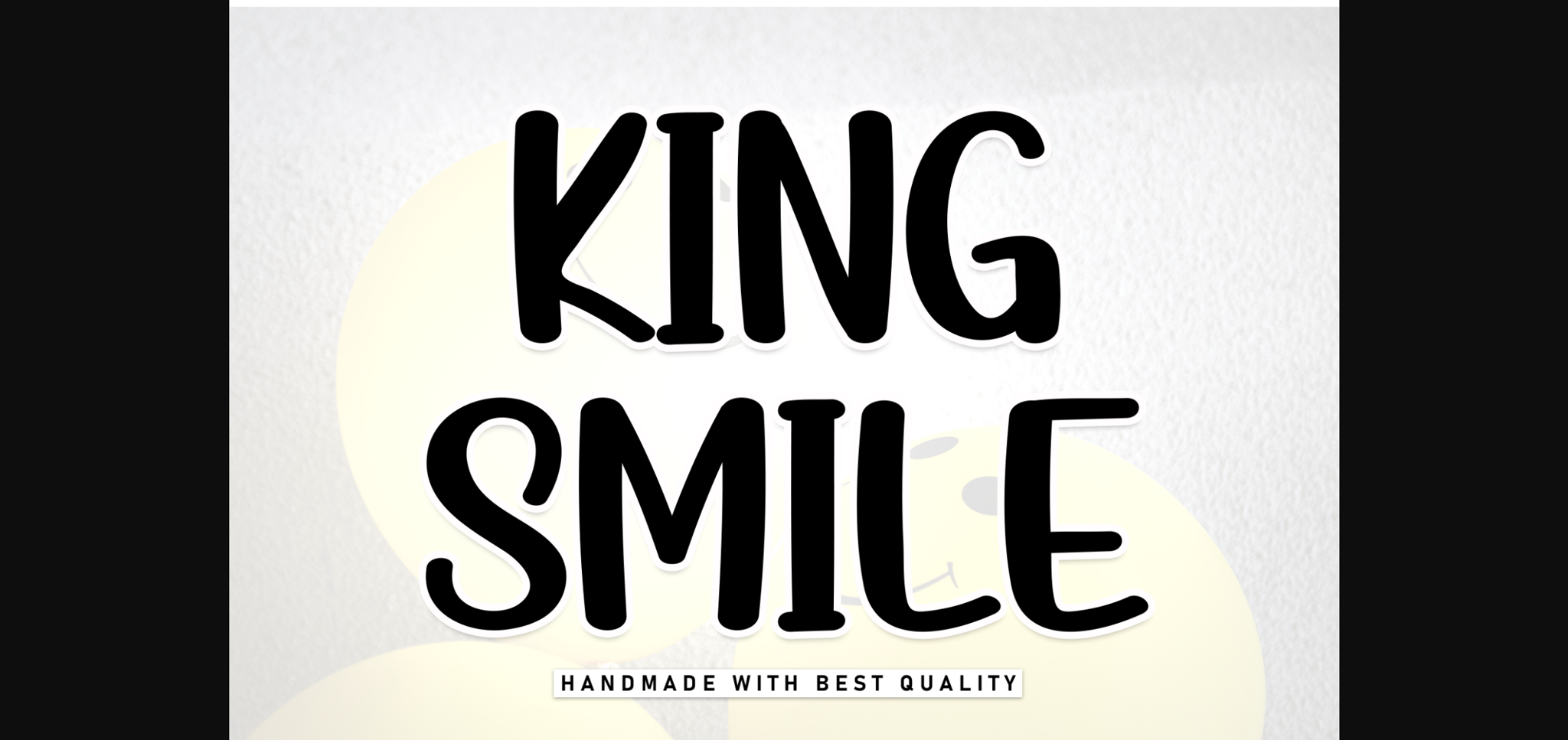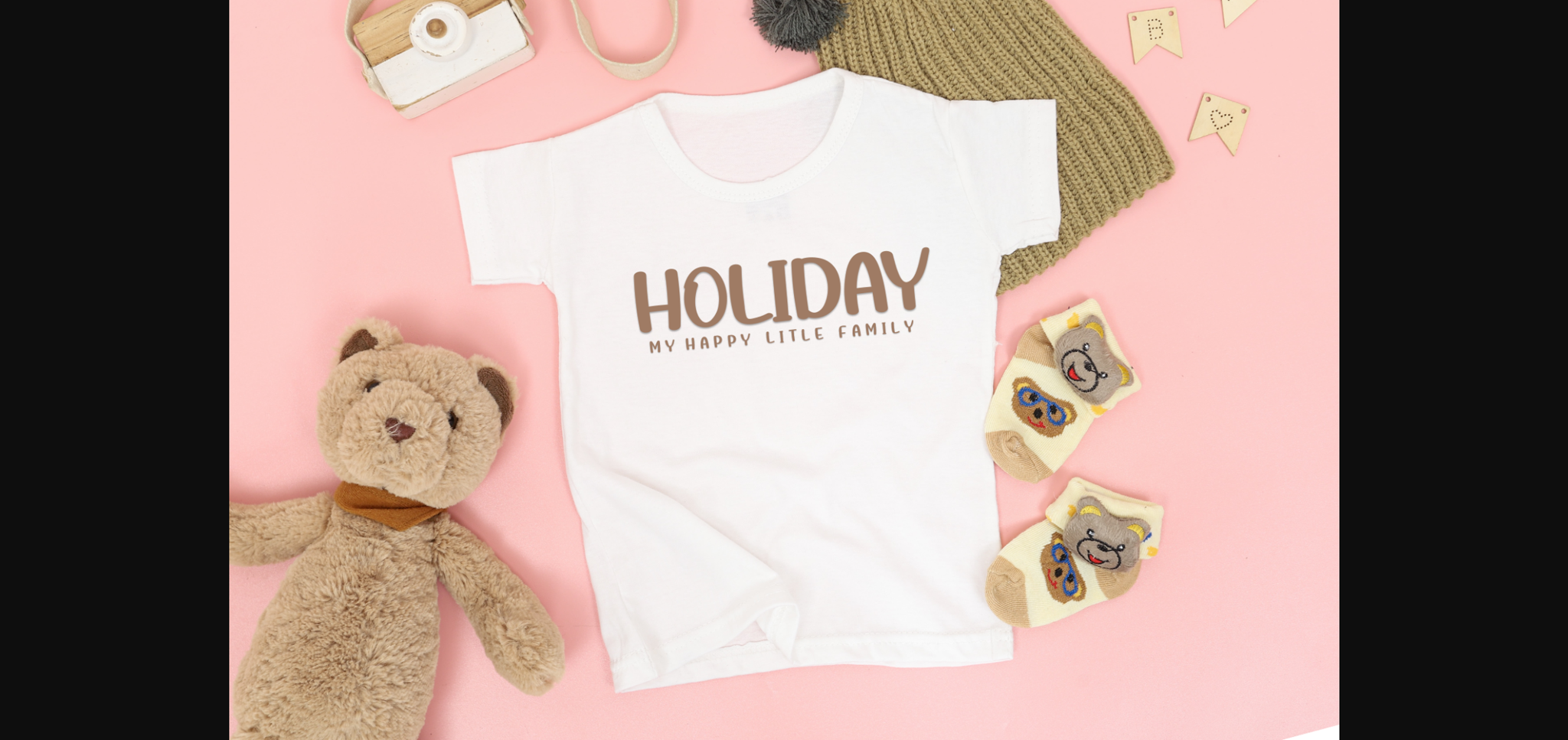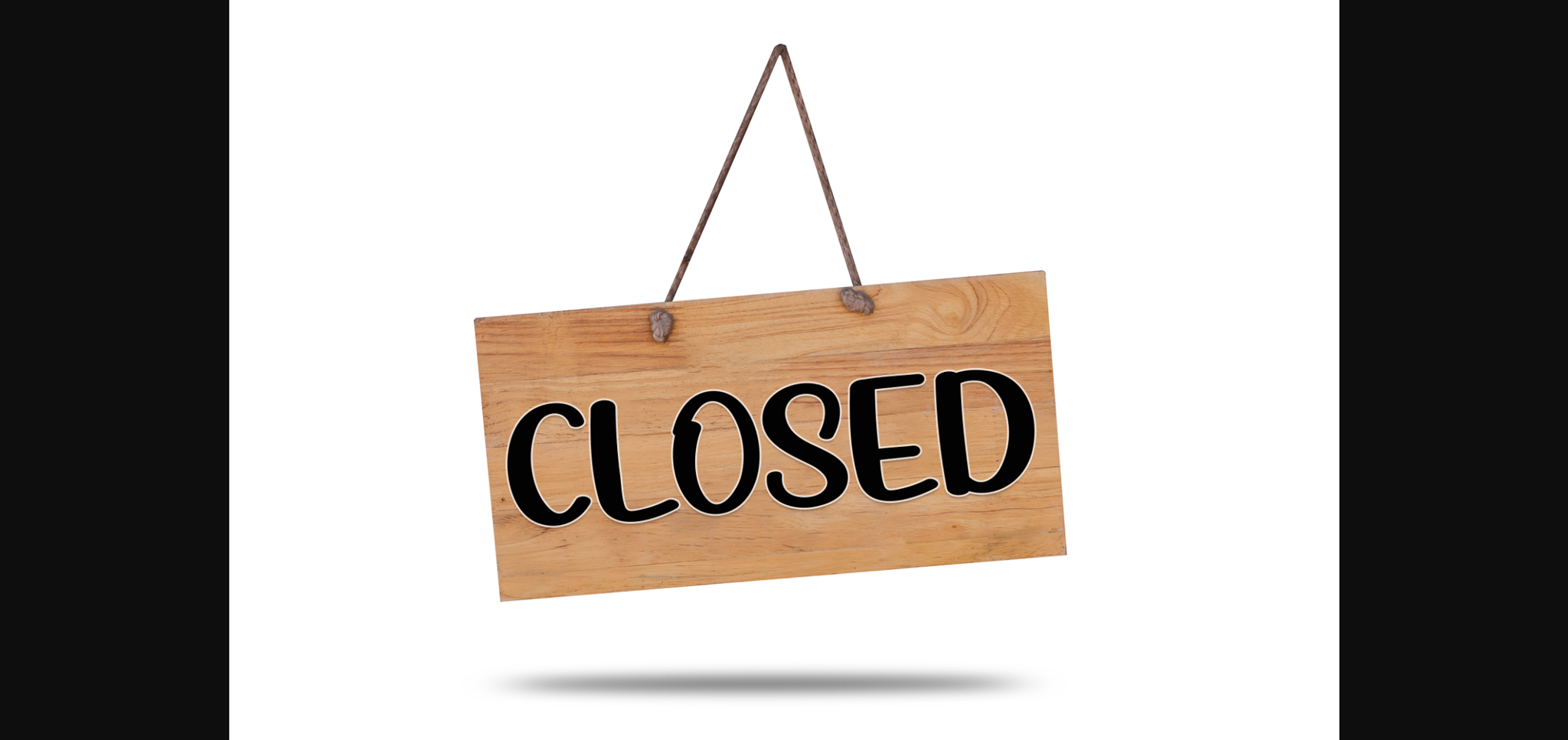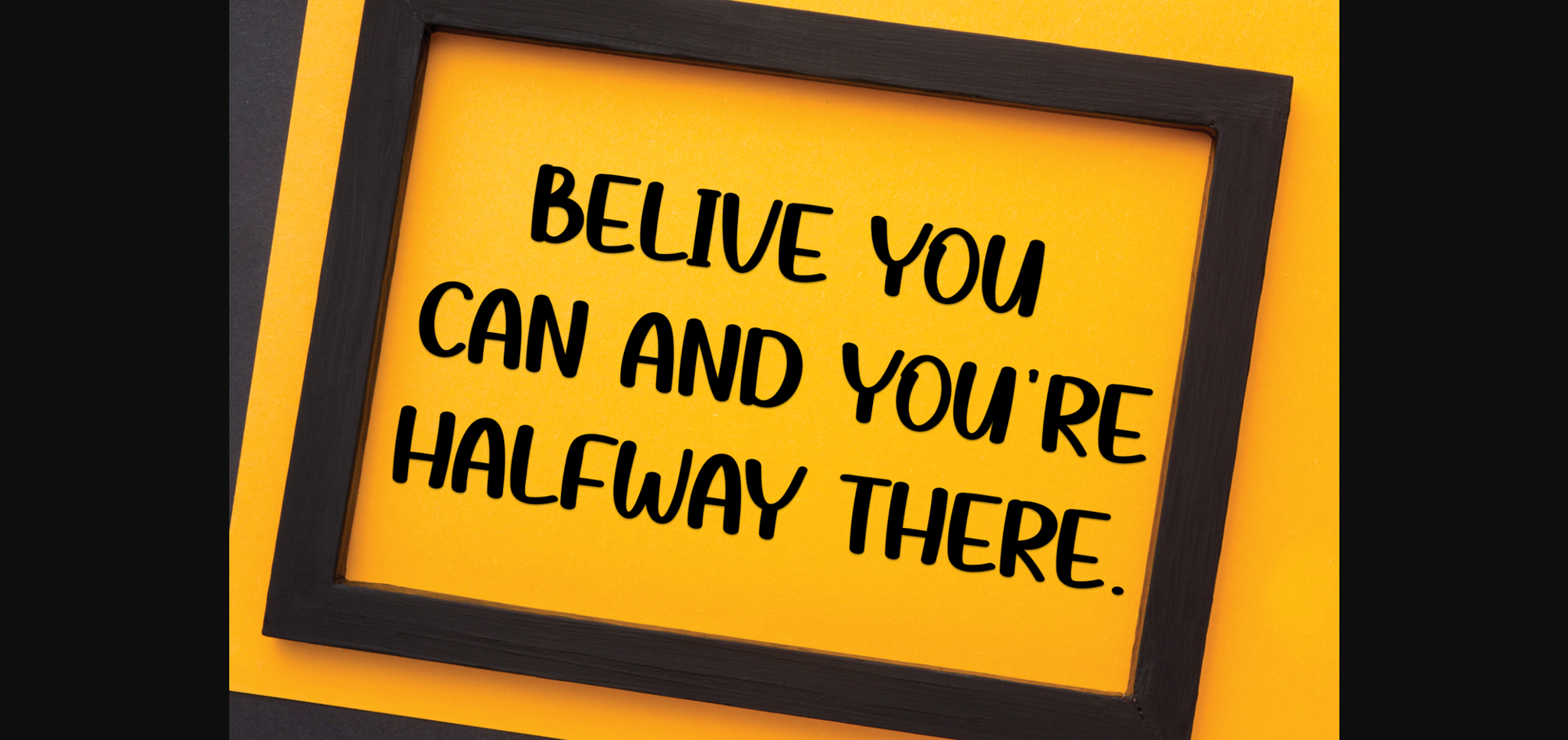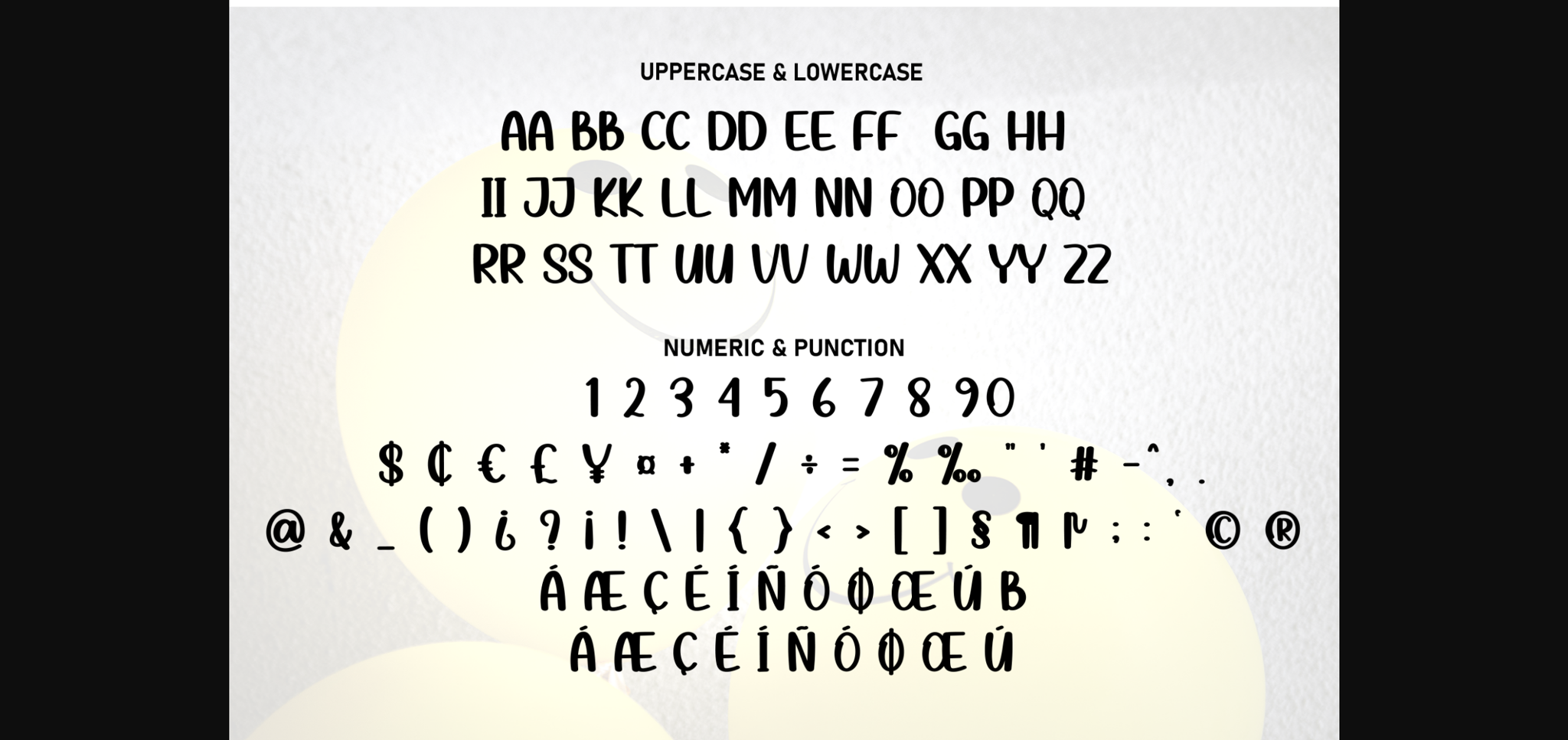
About King Smile Font
King Smile is a neat and beautiful sans-serif font described by an elegant touch, perfect for your favorite projects. Fall in love with its incredibly distinct and timeless style, and use it to create spectacular designs!